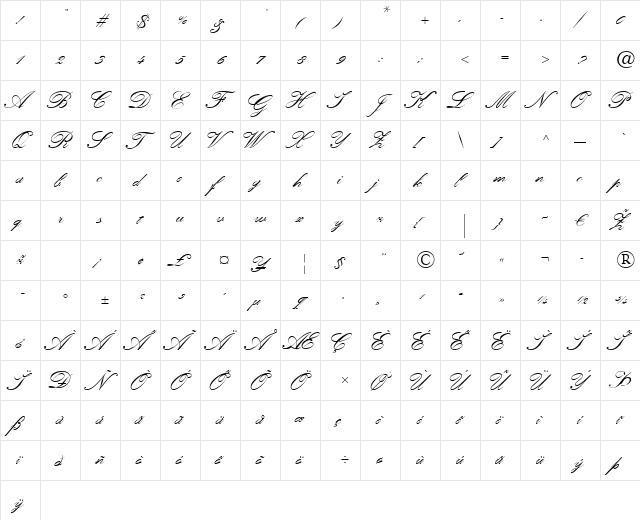
Heather Script Two Regular
| Foundry | Alexandra Gophmann (rusifikation) |
| Designer | Alexandra Gophmann |
Design Context for Heather Script Two Typeface
Heather Script Two flows with the natural rhythm of handwritten lettering, making it ideal for designs that call for warmth and personal expression.
Font Pairing: Combine Heather Script Two with a simple geometric sans for maximum contrast — the tension between flowing curves and clean structure is a classic typographic pairing.
Pro Tip: Use Heather Script Two for short runs of text — names, titles, or taglines. Extended body copy in script faces tires the eye quickly.